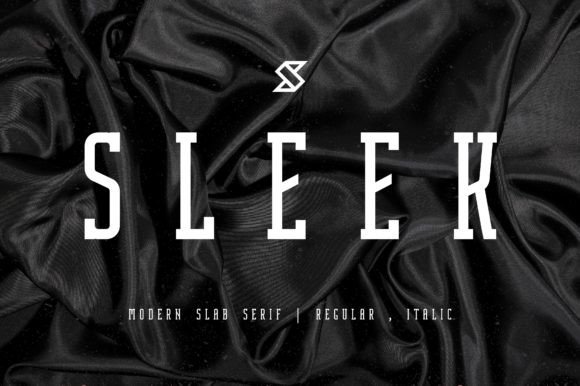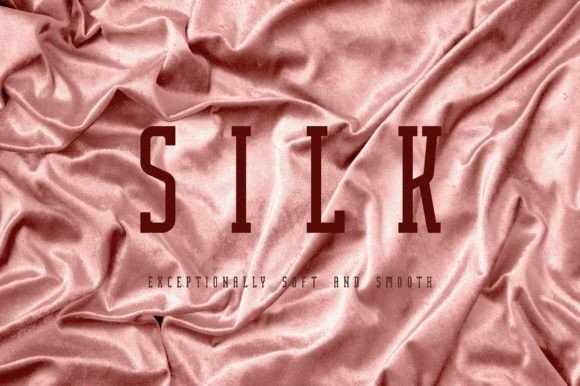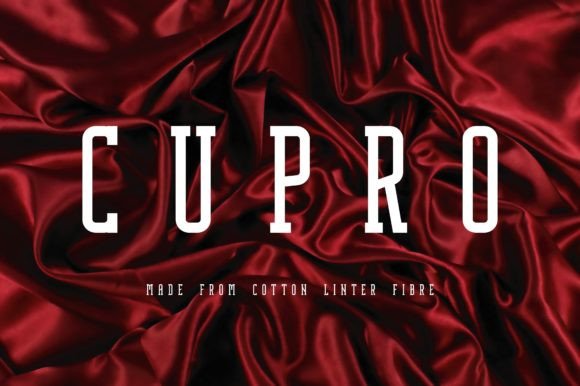
Sleek Font
Sleek: An Elegant and Minimalist Slab Serif Font
Sleek is an elegant, minimalist, clean, condensed, and tall slab serif font. It has a compressed feel that fits wonderfully on large areas and when used in titles. Stunning results can be easily achieved by using an elegant clean background with a complementary or contrasting color. This versatile font is suitable for modern designs such as magazine covers, social posts, packaging, perfume, and much more!
Key Features of Sleek
• Elegant Design: Offers a sophisticated and refined look suitable for various applications.
• Minimalist Style: Features clean lines and simple forms for a modern aesthetic.
• Condensed Structure: Provides a compressed feel, perfect for large areas and titles.
• Versatile Application: Ideal for both print and digital media projects.
Ideal Uses for Sleek
Sleek’s unique characteristics make it particularly well-suited for:
When incorporating Sleek into your designs, consider these tips:
• Use for headlines or large text areas to showcase its condensed style.
• Experiment with different sizes to highlight the font’s elegant features.
• Pair with clean, complementary or contrasting backgrounds for stunning results.
• Utilize its minimalist appearance to create modern and sophisticated designs.
Sleek is an excellent choice for designers looking to add an elegant and minimalist slab serif font to their typographic toolkit. Its ability to bring a modern and sophisticated touch to various design projects makes it stand out in the world of typography. Whether you’re working on magazine covers, creating social media content, or developing packaging designs, Sleek offers the perfect blend of style and functionality.
Furthermore, Sleek’s unique design allows it to shine in various contexts. From contemporary digital layouts to more traditional print materials that need a touch of modernity, this font can elevate your projects. Its condensed yet readable appearance works particularly well in designs that require a thoughtful and engaging mood.
In conclusion, Sleek is a font that truly captures the essence of modern elegance in typography. Its ability to work well in both large-scale applications and more intricate designs showcases its versatility. For those looking to add a touch of refined charm to their work, Sleek can enhance themed creations with its distinctive style. It’s the perfect choice for designers seeking to make a sophisticated, stylish impact across a wide range of creative projects.